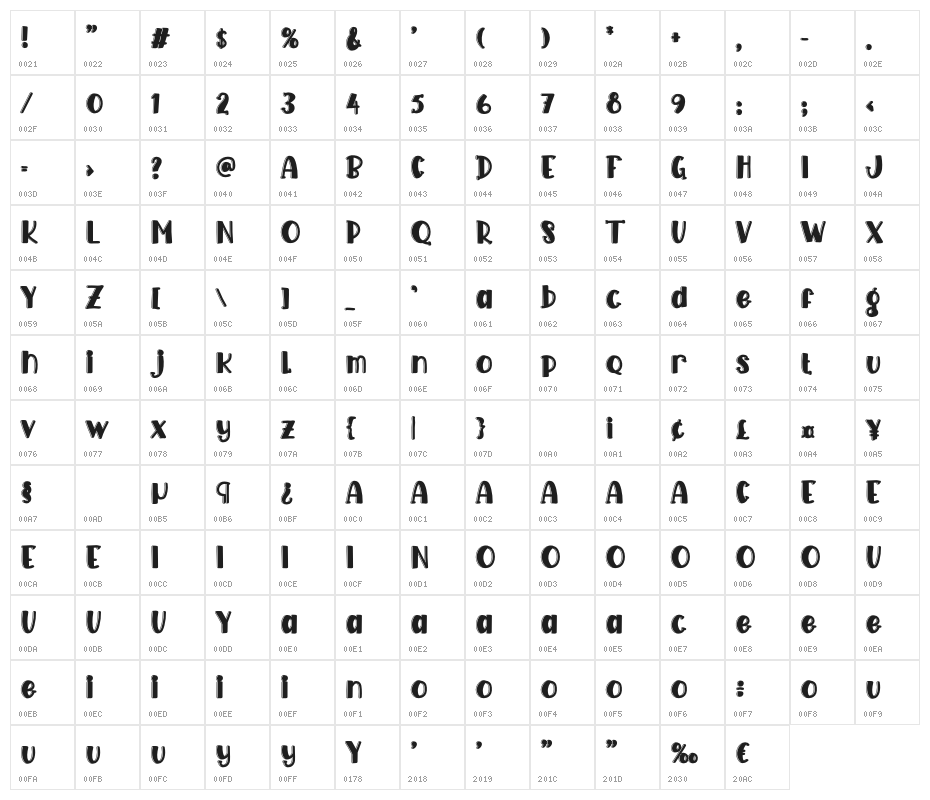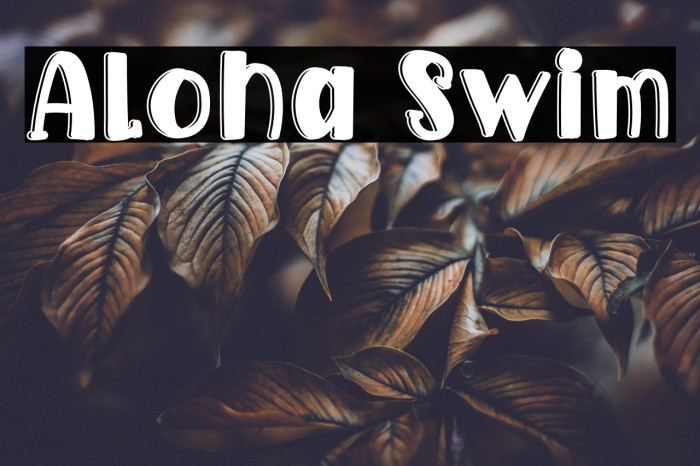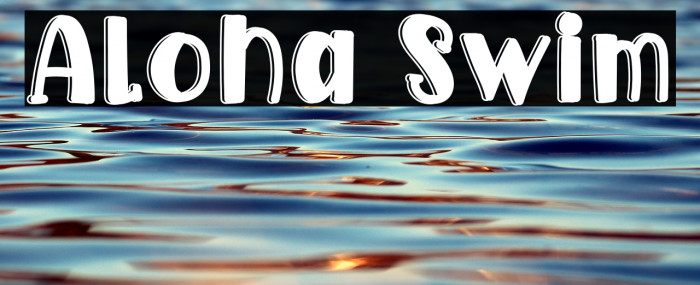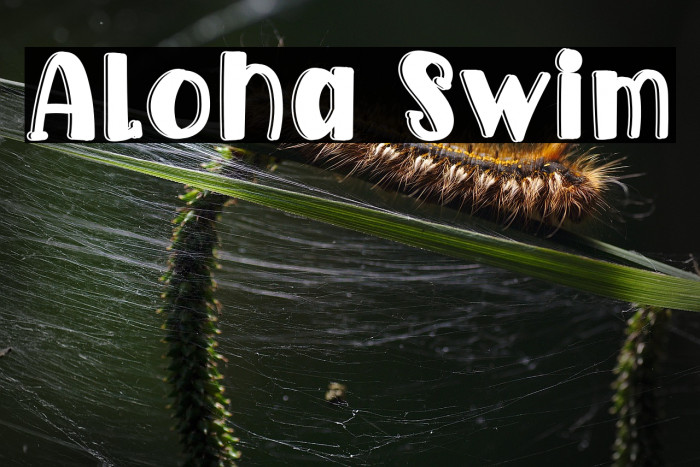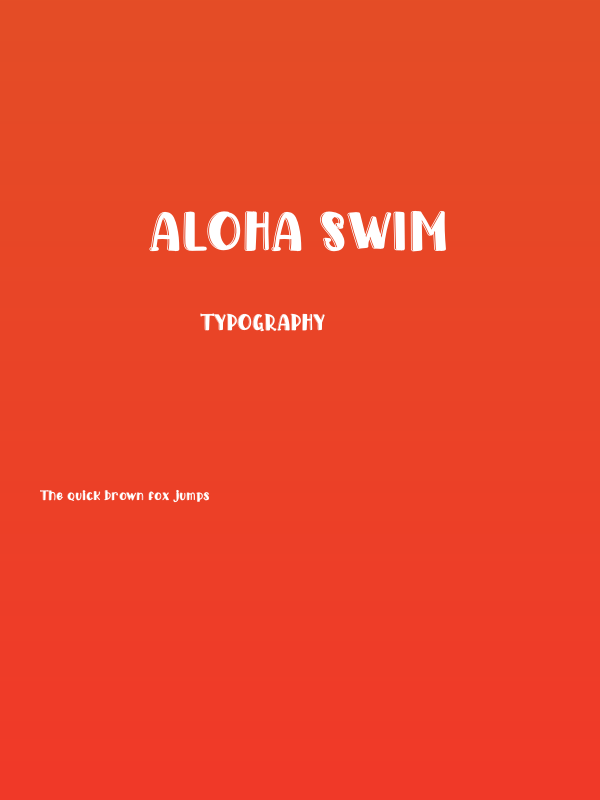
Aloha Swim Font
Aloha Swim Description
This playful and bold font features a unique blend of rounded and angular elements, creating a lively and dynamic appearance. The uppercase letters are characterized by their thick strokes and slightly exaggerated curves, giving them a whimsical feel. The lowercase letters maintain a consistent style, with rounded edges and a friendly demeanor. The numbers are bold and easy to read, making them suitable for a variety of uses. Special characters are designed with the same playful touch, ensuring a cohesive look across all text elements. This font's distinct style makes it ideal for projects that require a fun and engaging visual impact.
| Proposed Projects | Ideal for children's books, playful branding, event posters, and creative social media graphics. |